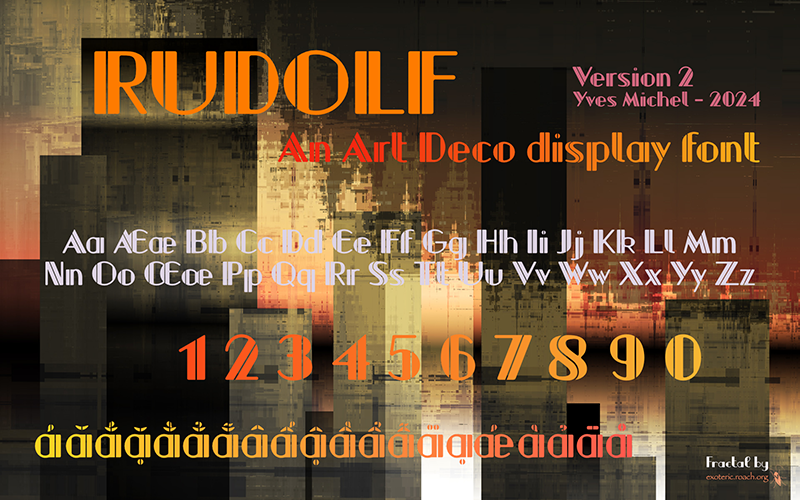
Font name: | Rudolf |
Author: | Yves Michel |
Version 2, thoroughly revamped! An Art Deco font inspired by fonts like Broadway Engraved, Bilboard and others. The name refers to Rudolph Valentino (not the Red-Nosed Reindeer!) |